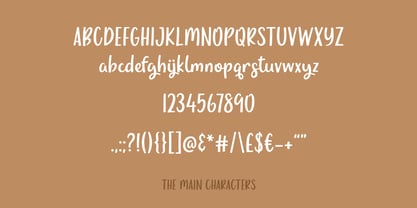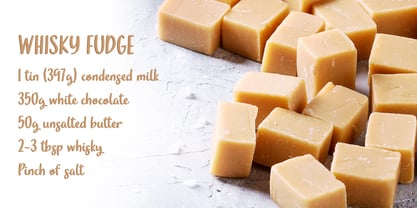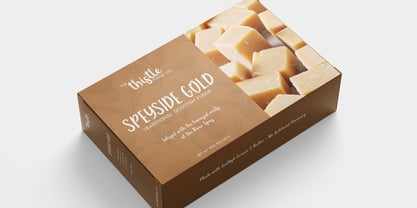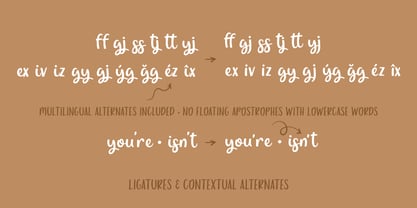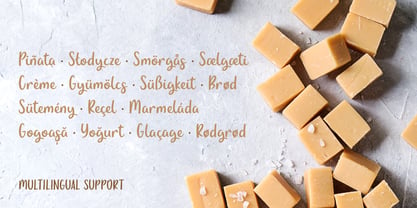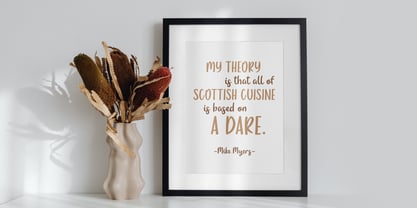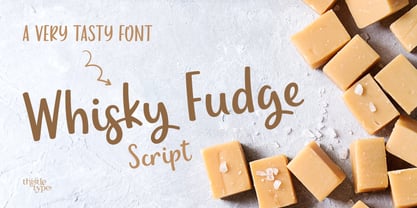
Whisky Fudge Script
Whisky Fudge is a rich, flowing brush script inspired by the smooth, indulgent feel of traditional whisky fudge. Warm and relaxed in tone, it’s designed to feel natural, expressive, and easygoing.
With its handwritten flow and soft curves, it brings a sense of movement without feeling forced – making it a good fit for branding, packaging, logos, and social content that leans more personal and approachable. The brush style keeps things organic while still holding enough weight to be noticed. It balances a playful edge with a bit of boldness, so it works just as well for standout headlines as it does for more casual, everyday use.
Includes uppercase and lowercase characters, numerals, punctuation, and symbols, with multilingual support for European languages.